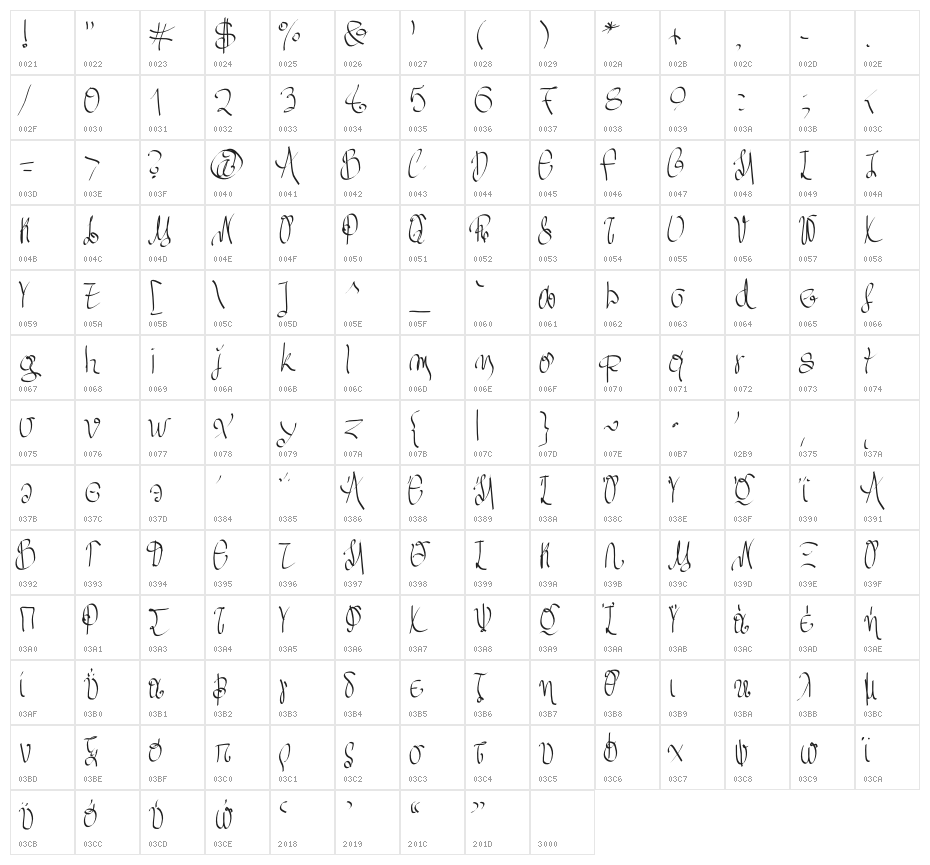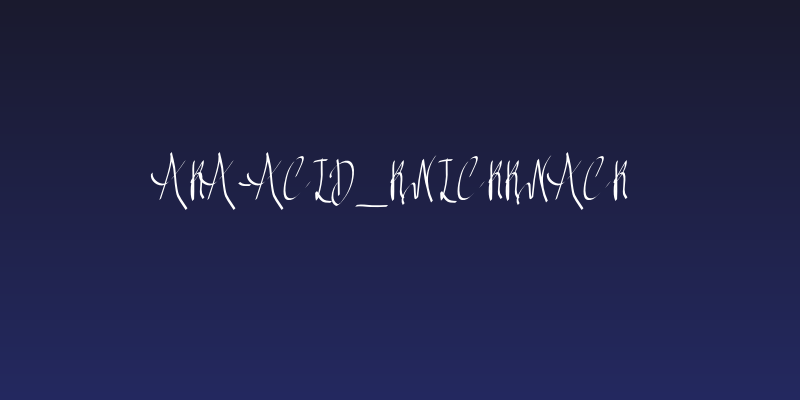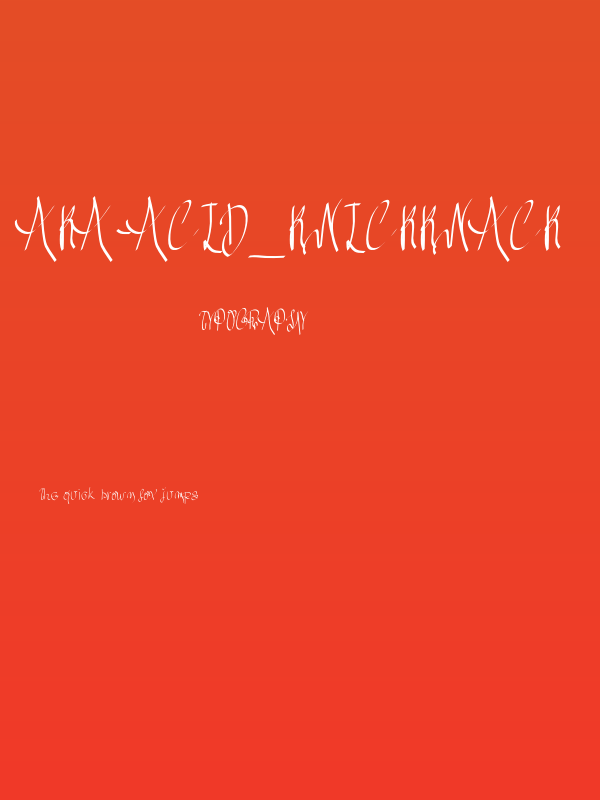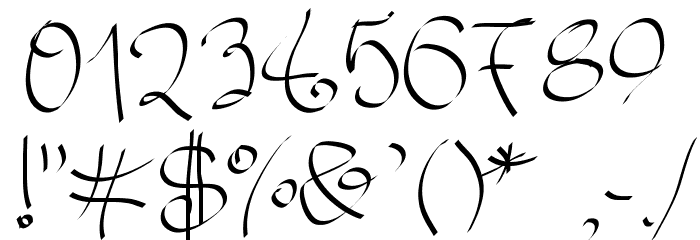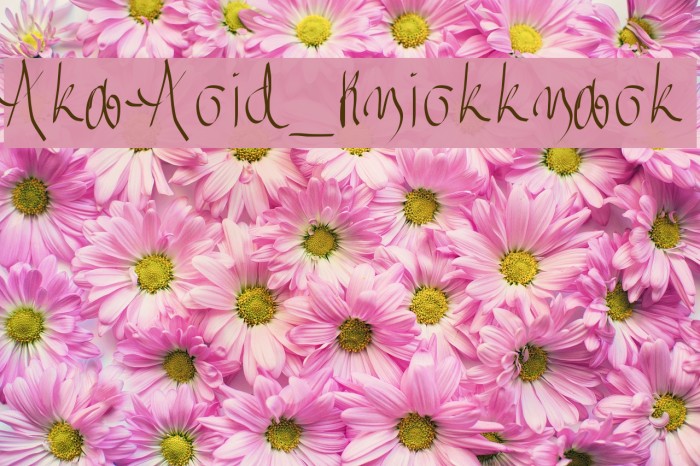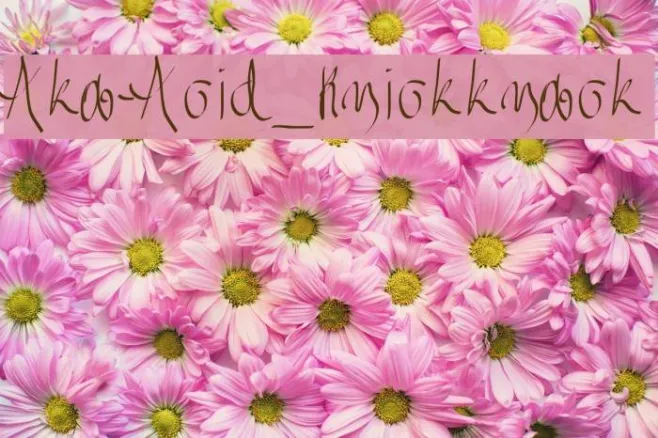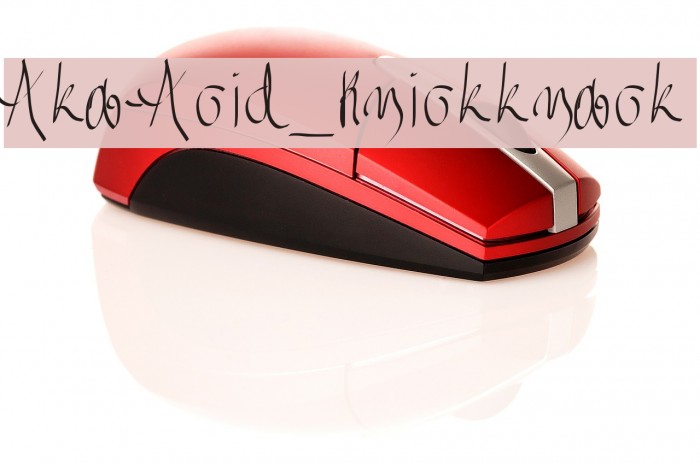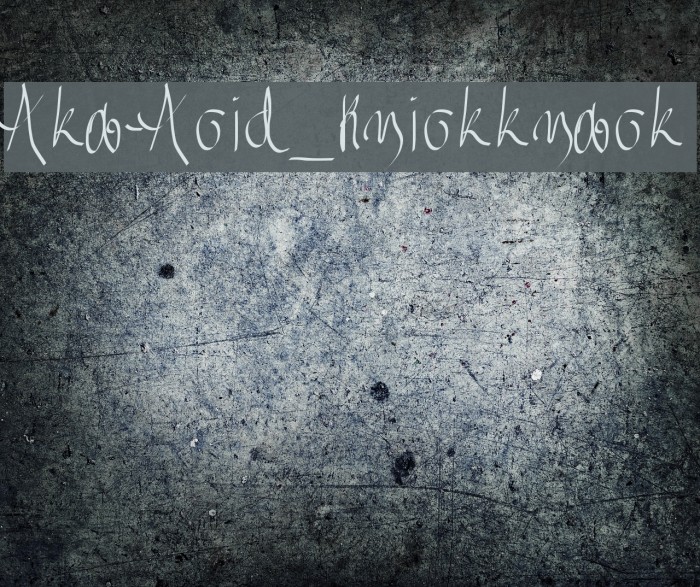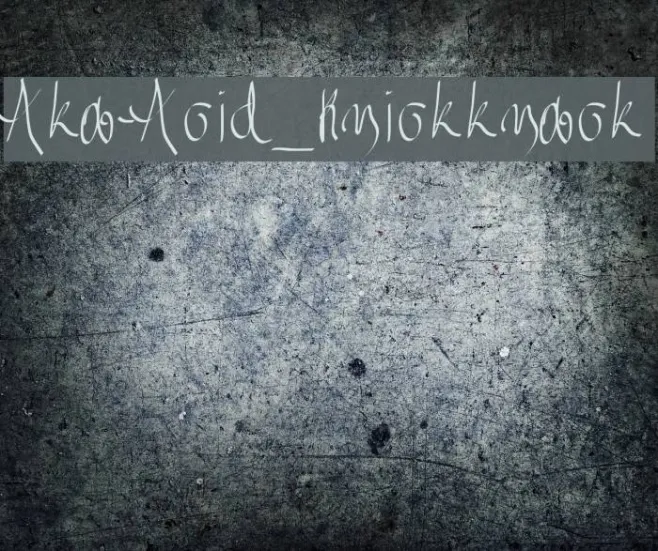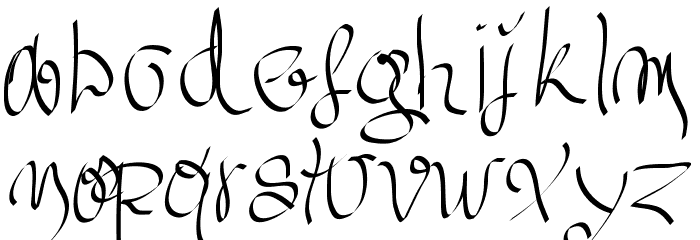
Aka-Acid_Knickknack Font
Aka-Acid_Knickknack Description
This font features an expressive and dynamic handwritten style, characterized by its fluid and flowing strokes. The letters are elongated and slightly tilted, giving a sense of movement and elegance. The uppercase and lowercase letters maintain a consistent style, with unique flourishes and loops that add a whimsical touch. The numerals and special characters follow the same artistic approach, ensuring a cohesive look across all glyphs. This font's playful yet sophisticated appearance makes it suitable for creative projects that require a personal and artistic touch.
| Use Case | Logos, Artistic projects, Invitations |
| Proposed Projects | Ideal for invitations, greeting cards, artistic posters, and branding materials that seek a personal and creative flair. |